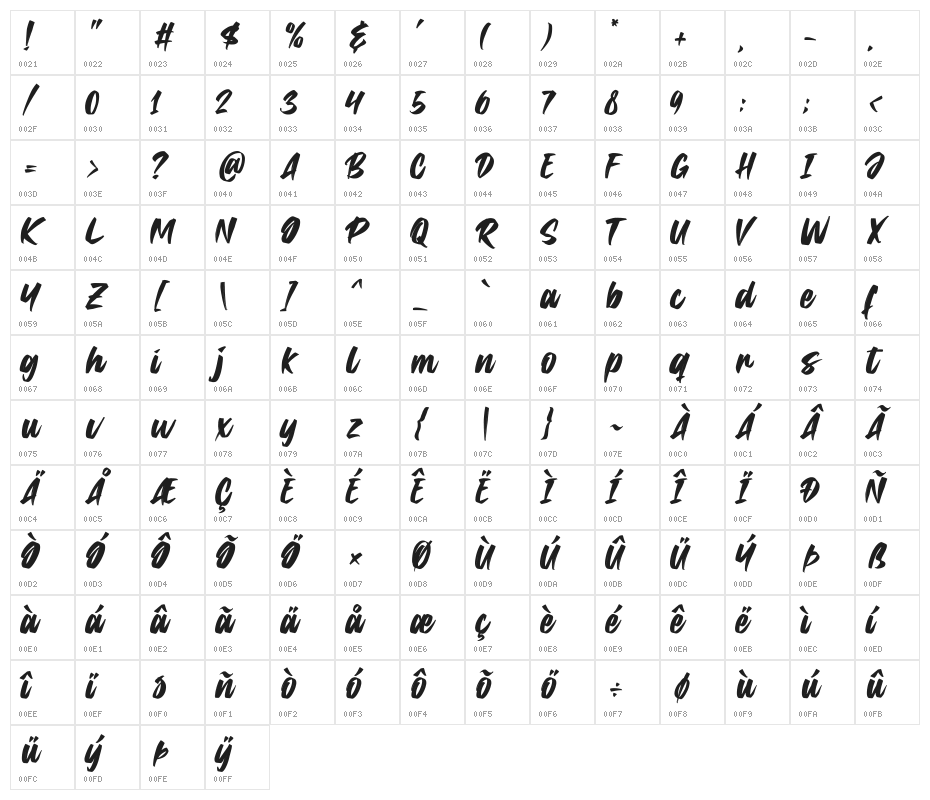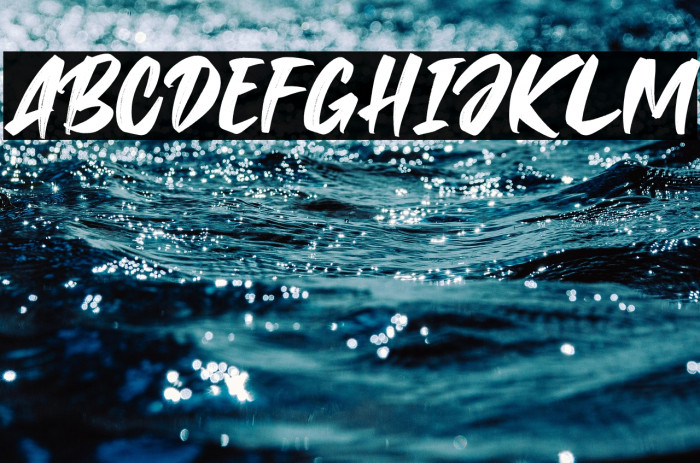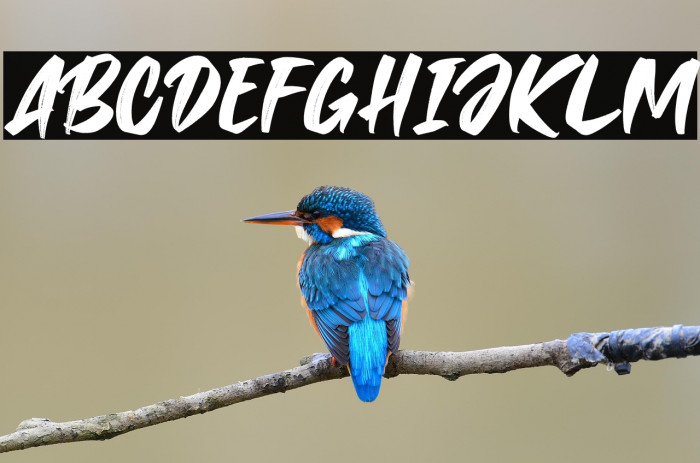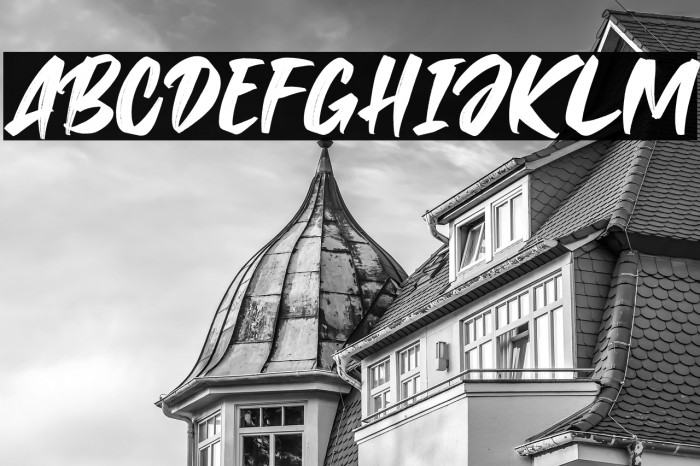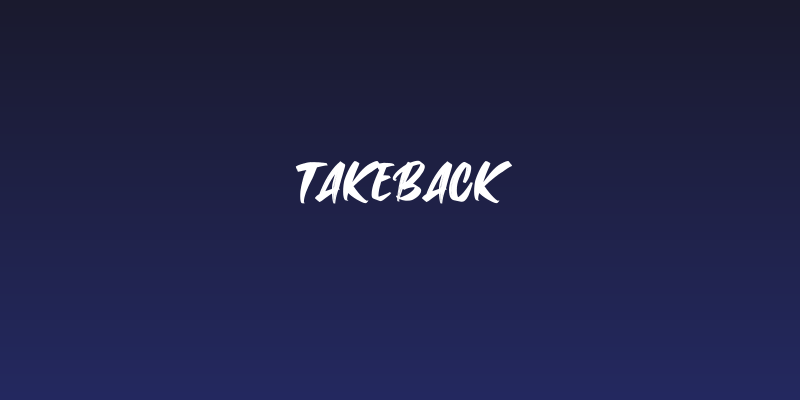
TakeBack Font
TakeBack Description
This font exudes a bold and energetic style, characterized by its brush-like strokes and dynamic flow. The letters have a hand-painted appearance, with varying thickness that adds a sense of movement and vitality. The uppercase and lowercase letters maintain a consistent style, while the numerals and special characters complement the overall aesthetic. This font is perfect for projects that require a personal touch or an artistic flair, making it ideal for creative designs.
| Use Case | Logos, Headlines, Posters |
| Proposed Projects | Ideal for branding, posters, album covers, and any creative project that requires a bold, artistic touch. |